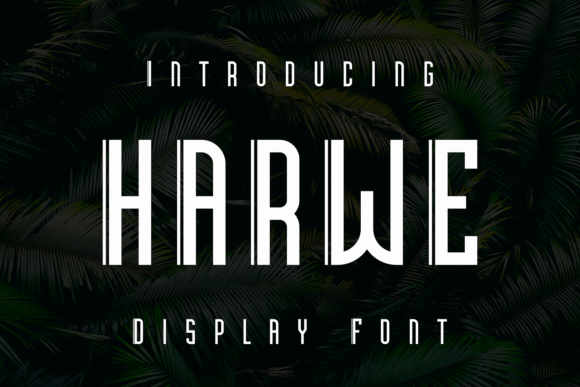
Introducing Harwe Font - The Magazine Masterpiece!
In the realm of captivating display fonts, Harwe Font stands tall as a beacon of elegance, versatility, and sophistication. This modern, natural-looking font, crafted with precision by the skilled hands of lelevien, is an artistic triumph that will transform your creative endeavors into visual masterpieces.
Welcome to the world of Harwe, a font designed to turn heads and leave a lasting impression. As you embark on your creative journey, this font will be your trusted companion, guiding you towards greatness. Whether you're crafting magazine ads that demand attention, designing posters that ignite imaginations, or composing social media posts that captivate audiences, Harwe Font is the key to unlocking your true creative potential.
With its innate ability to elevate any creation, Harwe Font is the perfect choice for designers, marketers, and content creators who seek to make a bold statement. Its meticulously crafted characters, each possessing a distinct personality, bring a touch of uniqueness to every project, ensuring that your message is conveyed with clarity and impact.
Unleash the Power of Harwe Font:
- Elevate Magazine Ads: Harwe Font is the ultimate weapon in your advertising arsenal. Its striking appearance and readability make it the ideal choice for creating magazine ads that command attention and leave a lasting impression. Design ads that leap off the page and captivate audiences, ensuring that your brand stands out from the crowd.
- Captivate Posters and Flyers: Transform ordinary posters and flyers into works of art with Harwe Font. This font's bold and distinctive style will make your designs shine, grabbing attention and conveying your message with flair. Create posters that ignite imaginations and flyers that spark curiosity, leaving a lasting impact on your audience.
- Ignite Social Media Posts: In the bustling world of social media, Harwe Font is the key to crafting posts that break through the noise and resonate with your audience. Use this font to create visually stunning posts that capture attention, generate engagement, and leave your followers craving more. Let Harwe Font be your voice in the digital realm, amplifying your message and connecting you with your audience in ways you never thought possible.
- Enhance Logos and Branding: Forge a powerful brand identity with Harwe Font. Its distinctive character and timeless appeal make it the perfect choice for creating logos that exude professionalism and sophistication. Design logos that stand the test of time, leaving a lasting impression on your customers and competitors alike. Harwe Font is the key to unlocking a brand identity that speaks volumes about your values and aspirations.